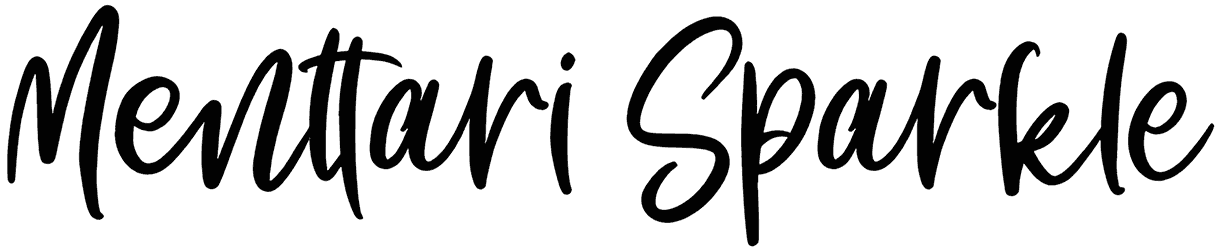
Menttari Sparkle Font
If you are thinking of implementing a project that will inspire all designers, we suggest you start with Manttari Sparkle. This can be a key step for your brand and help develop the visual identity of your projects.
The subtle movements and broken letters of this handwritten font, even though they make it a bit difficult to read, are still associated with sophistication and class and are the best choice for tattoos, wedding cards, and personal themes.